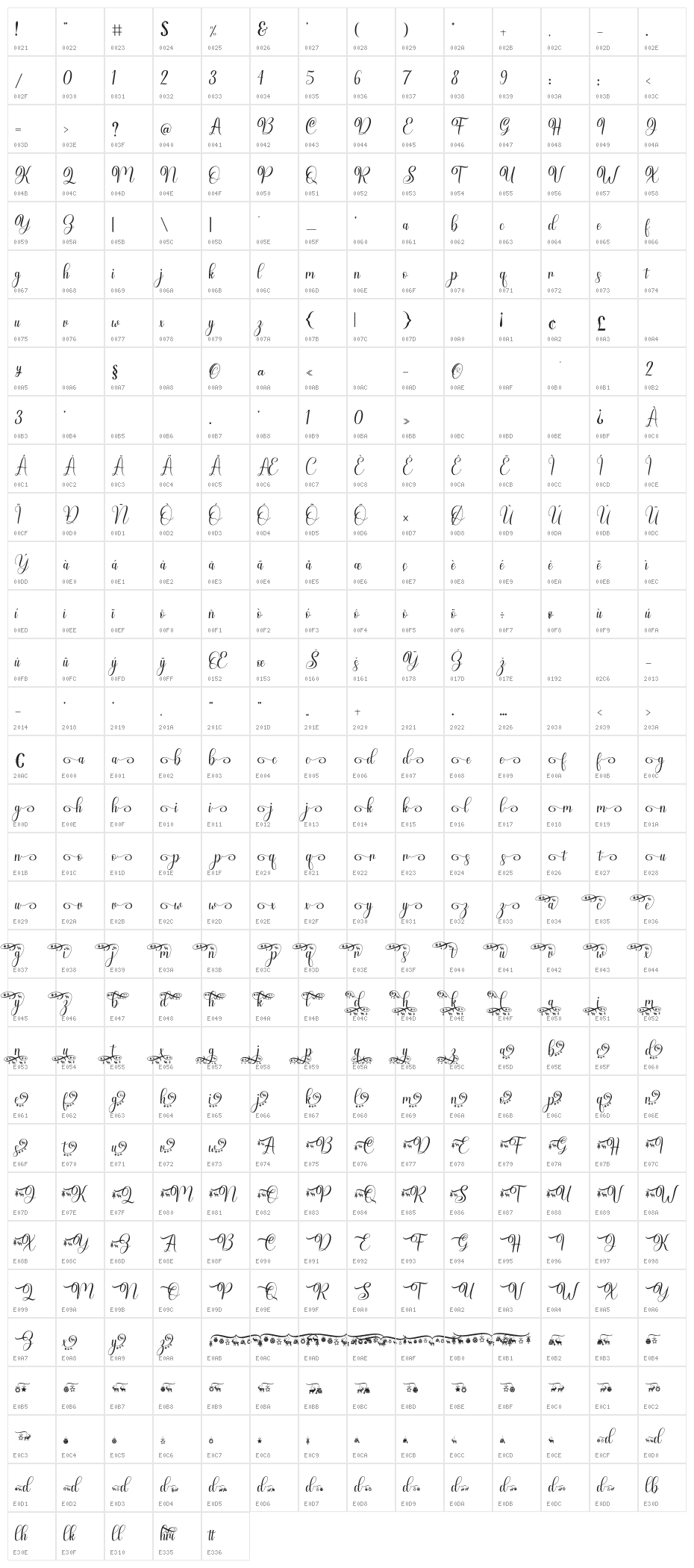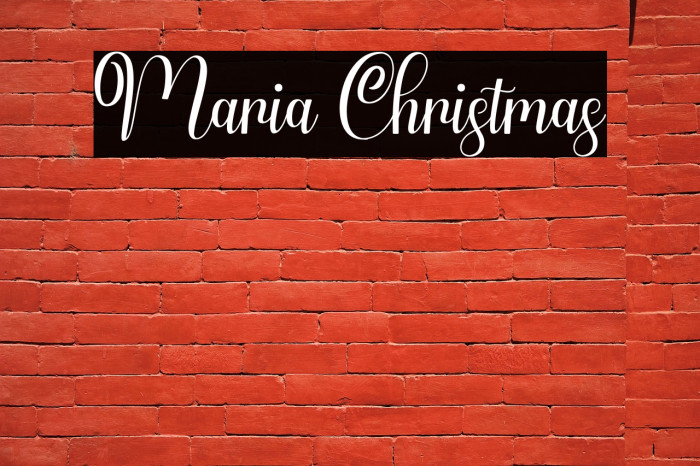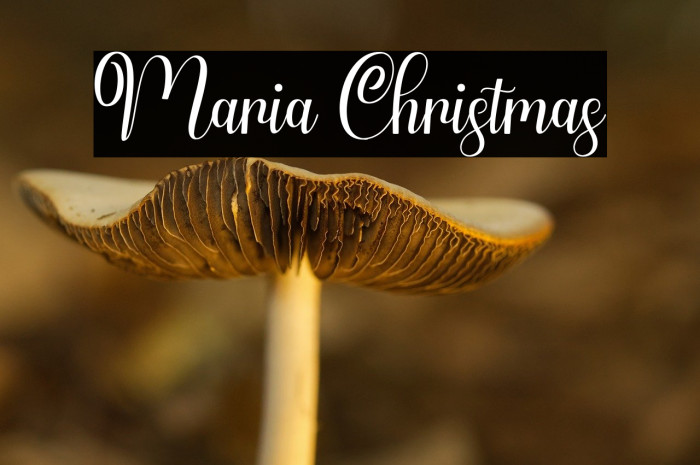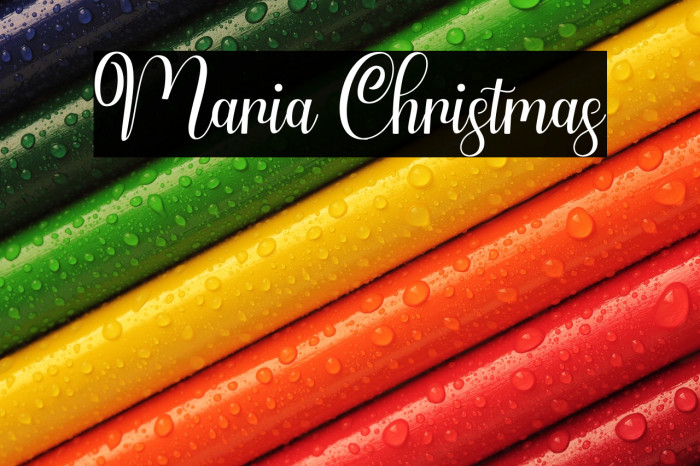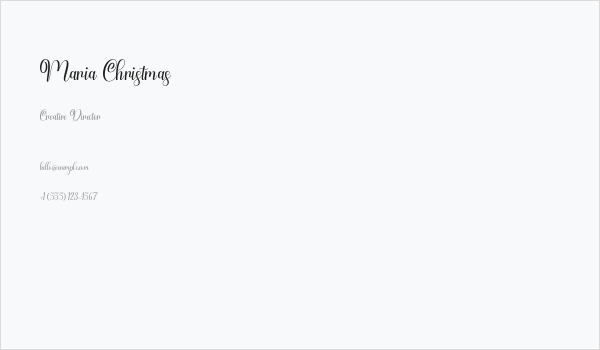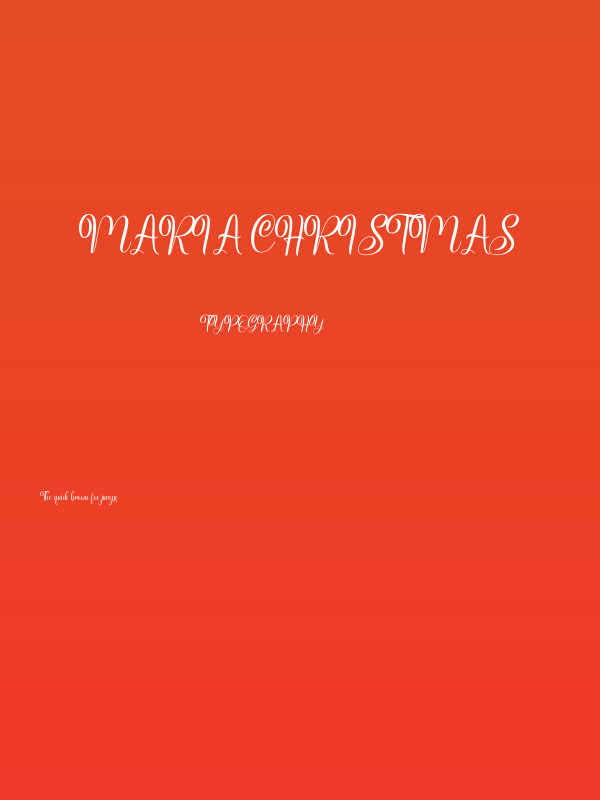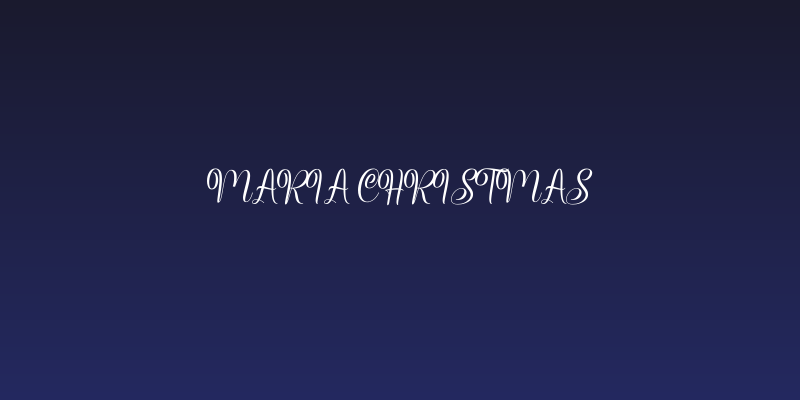
Maria Christmas Font
Maria Christmas Description
This font features an elegant and flowing script style, characterized by its intricate loops and flourishes. The uppercase letters are particularly ornate, with sweeping curves that give a sense of movement and grace. The lowercase letters maintain a consistent style, offering a harmonious blend with the uppercase. The numerals are stylish yet readable, maintaining the decorative theme without sacrificing clarity. Special characters are thoughtfully designed to match the overall aesthetic, making this font suitable for a variety of creative applications. The font's sophisticated appearance makes it ideal for formal invitations, branding, and decorative projects where a touch of elegance is desired.